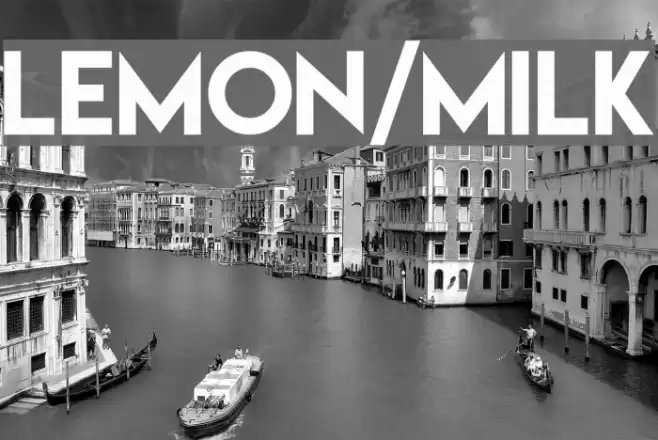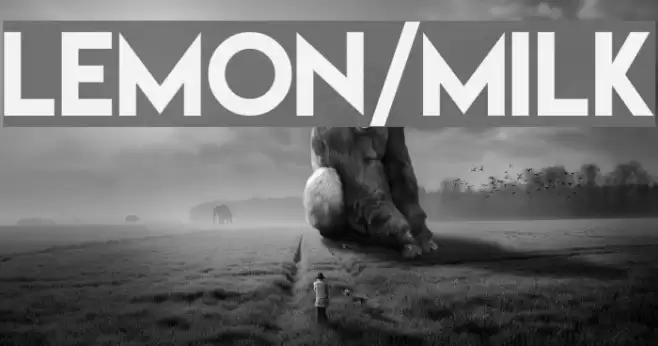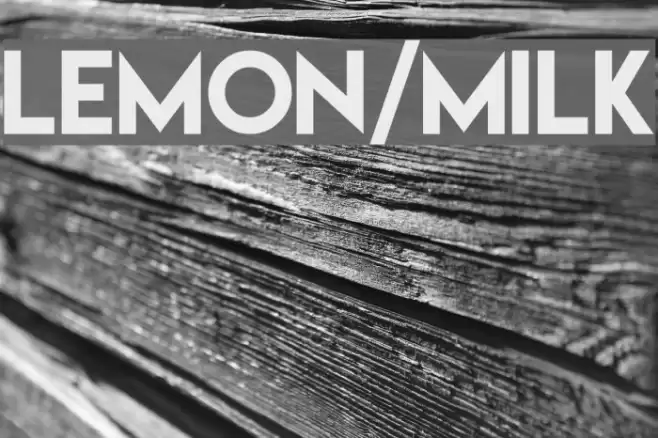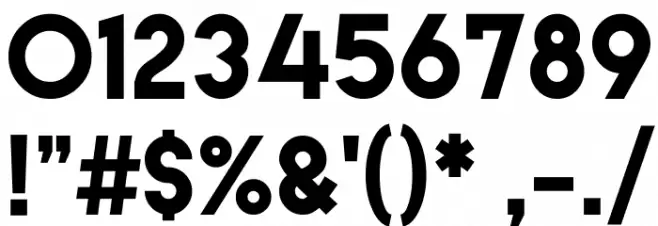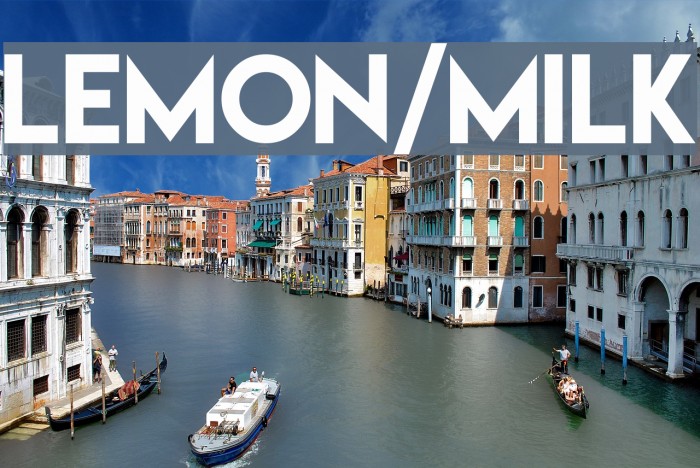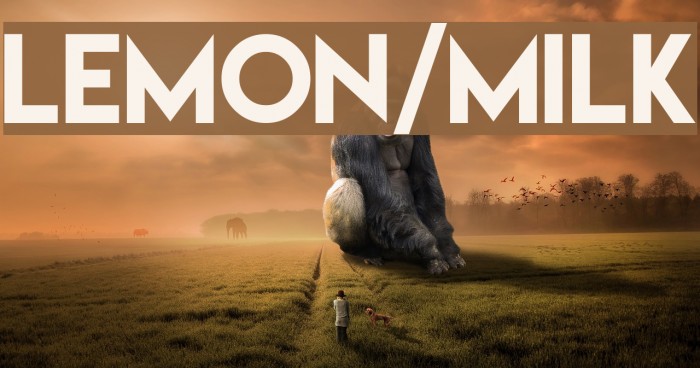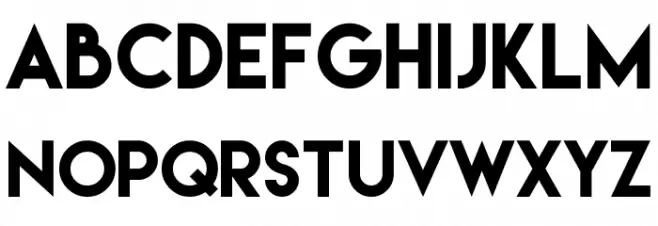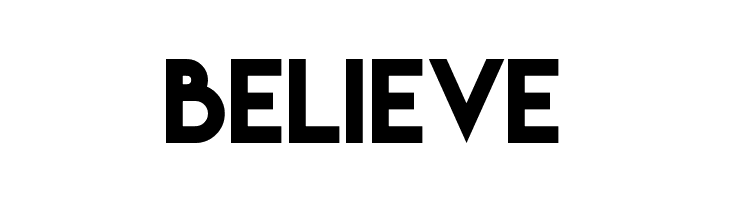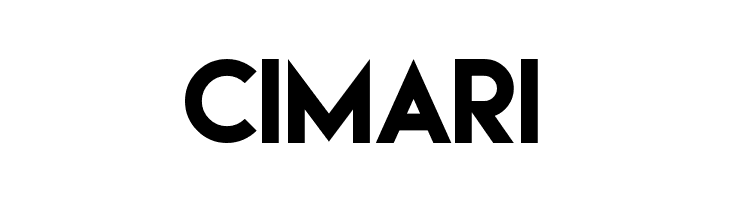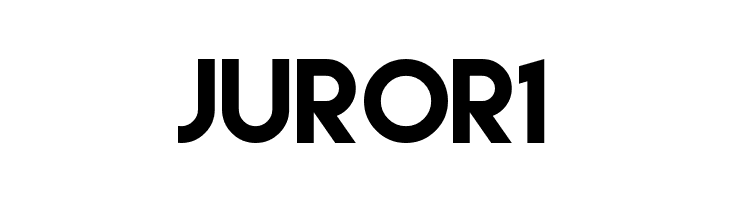
Lemon/Milk Font
Lemon/Milk Description
This font features a bold and geometric sans-serif style, characterized by its clean lines and modern aesthetic. The uppercase letters are uniform in height, with a strong presence that commands attention. The lowercase letters maintain the same geometric precision, offering a cohesive look across all text. Numbers are equally bold and clear, making them highly legible. Special characters are designed with the same attention to detail, ensuring consistency throughout. The overall design is versatile, suitable for a variety of applications where a contemporary and impactful look is desired.
A bold, geometric sans-serif font with a modern and clean aesthetic from Uncategorized fonts.
- Proposed Projects: Ideal for branding, advertising, headlines, and digital media projects where a strong visual impact is needed.
- Use Case: Headlines, Logos, Branding